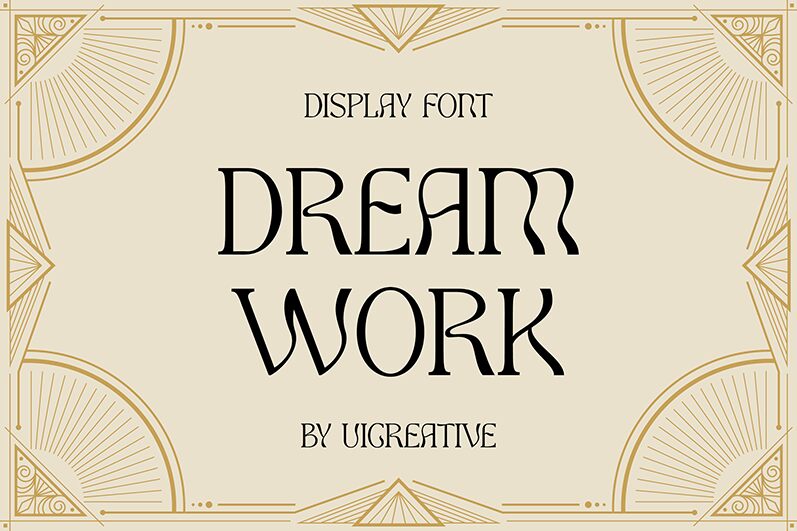
Dream Work
Dream Work, a captivating display font crafted by UI Creative, exudes a whimsical and dreamlike aesthetic. Its elegant, flowing letterforms and graceful curves evoke a sense of enchantment, inviting the viewer to embark on a visual journey. The font's distinctive character and alluring personality make it a standout choice for projects seeking to convey a touch of imagination and wonder.
This versatile font lends itself beautifully to a variety of design applications, from striking headlines and impactful logos to captivating packaging and editorial layouts. Its unique personality shines through, making it an ideal selection for branding, marketing materials, and creative projects that aim to capture the audience's attention and inspire their imaginations.